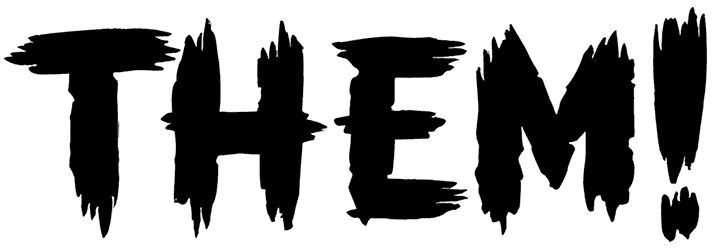
Them! Font
Sometimes, using a scratched font like Them! can be your game-changer in designing graphic content and other creative displays. Moreover, it helps you stimulate a sense of momentum, excitement, dynamic, and smudgy in the audience. This font can add different modes to street posters, digital banners, wallpapers, and brochures despite lacking lowercase letters.